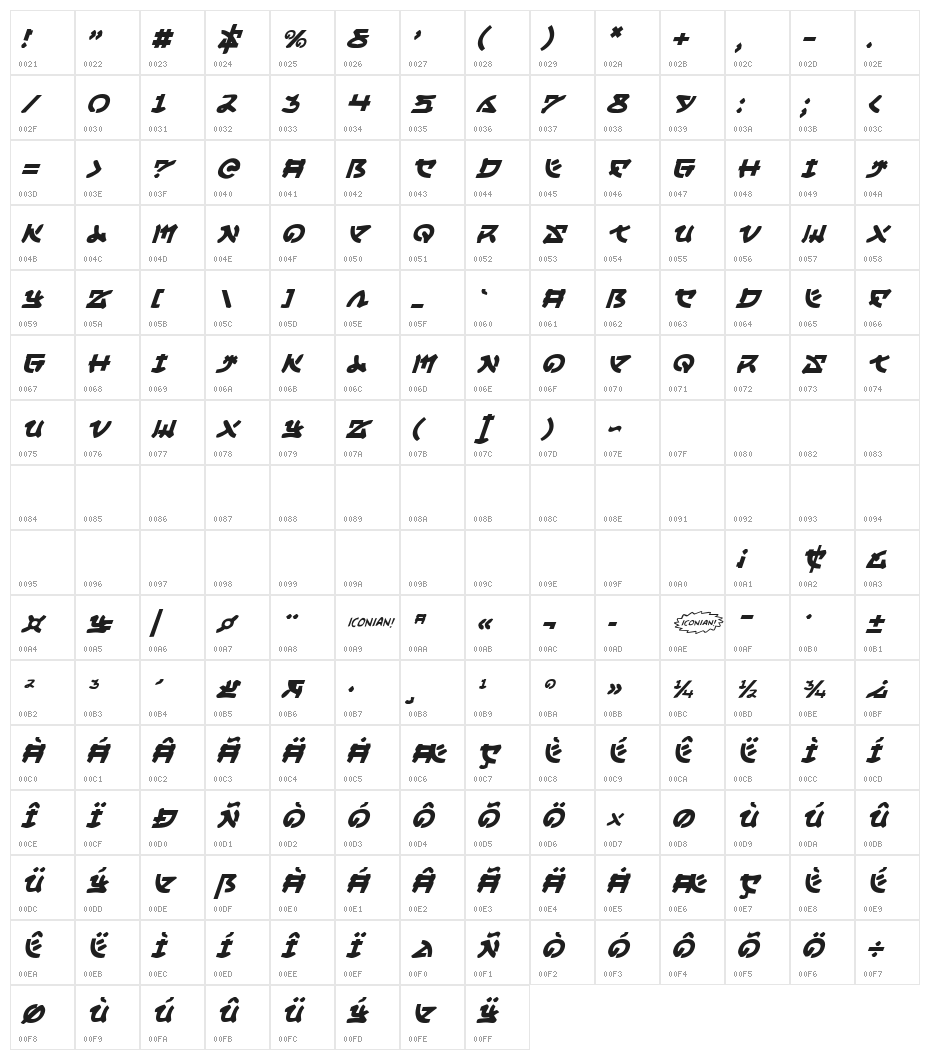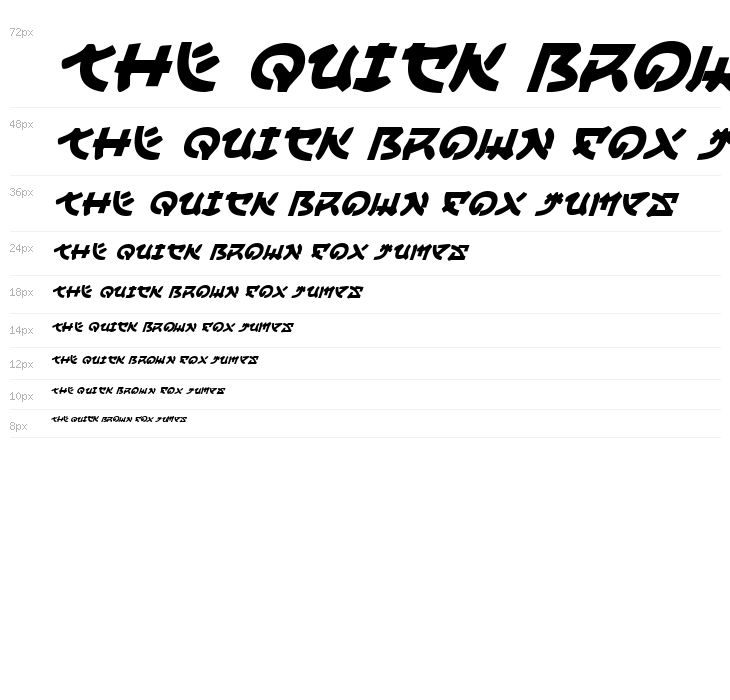
Yama Moto Italic Font
Yama Moto Italic Description
This font exhibits a bold and dynamic style with a strong italic slant, giving it a sense of motion and energy. The characters are crafted with sharp angles and thick strokes, creating a striking visual impact. The uppercase and lowercase letters maintain a consistent design, with unique geometric shapes that add a futuristic touch. The numbers and special characters follow the same bold and angular design, ensuring uniformity across all glyphs. This font's distinctive style makes it suitable for projects that require a modern and edgy appearance.
Proposed ProjectsIdeal for branding, posters, video game graphics, and any project needing a modern, dynamic look.